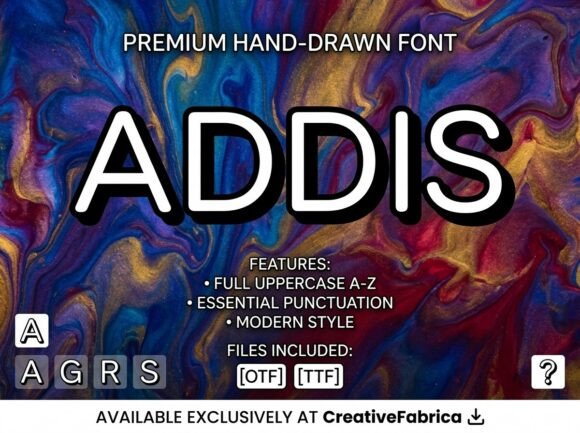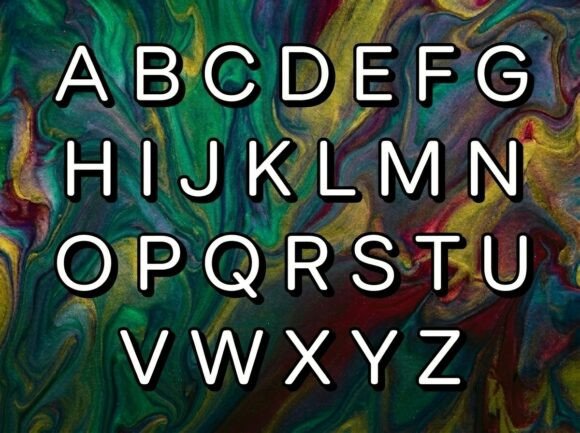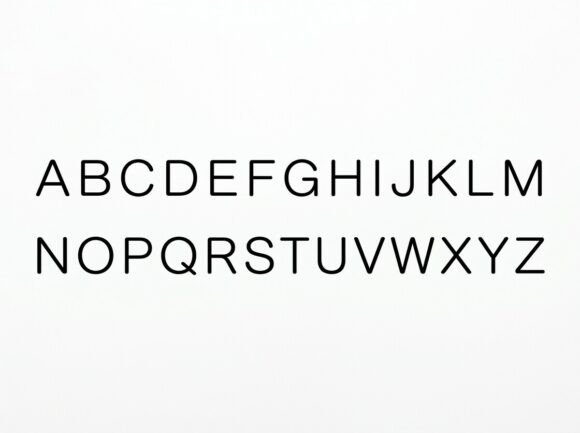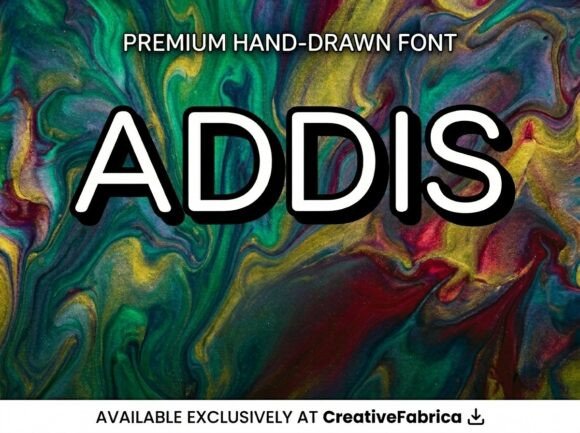
Introducing Addis Font: The Perfect Blend of Organic Charm and Modern Clarity
In the world of typography, finding the right font can make all the difference in creating a lasting impression. For designers and crafters looking to infuse their work with a touch of personality and approachability, Addis font is an exceptional choice. This premium hand-drawn font combines clean, sans-serif letterforms with a subtle, handcrafted irregularity that adds warmth and character to any design.
The Unique Characteristics of Addis Font
Addis font boasts a unique blend of modern clarity and organic charm. Its clean, sans-serif letterforms provide a crisp and contemporary look, while the subtle irregularities in the lettering add a touch of handcrafted warmth. This font features smooth, rounded terminals that give it a friendly and approachable feel, making it perfect for designs that require a personal touch.
One of the standout features of Addis font is its versatility. Its bold presence and smooth lines make it an excellent choice for a wide range of design applications. Whether you’re creating a logo for a boutique shop, designing a standout header for a digital campaign, or crafting artisanal product packaging, Addis font delivers a sense of approachable sincerity and effortless, artisanal grace to your visual identity.
Perfect for Creative Branding
For businesses looking to establish a strong brand identity, Addis font offers a unique opportunity to stand out from the crowd. Its hand-drawn charm and modern clarity make it an exceptional choice for creative branding, allowing businesses to convey a sense of personality and approachability. Whether you’re launching a new product or rebranding an existing company, Addis font can help you create a lasting impression.
Elevate Your Lifestyle Blog or Social Media Quotes
Addis font is also an excellent choice for lifestyle bloggers and social media influencers looking to elevate their visual identity. Its smooth lines and rounded terminals make it perfect for creating eye-catching headers and quotes that are sure to grab attention. With Addis font, you can add a touch of personality and sophistication to your online presence, setting you apart from the competition.
The Benefits of Using Addis Font
So why choose Addis font for your design projects? Here are just a few benefits of using this premium hand-drawn font:
• Unique character: Addis font offers a distinctive look that sets it apart from more traditional fonts.
• Improved legibility: Despite its hand-drawn irregularities, Addis font remains highly legible, making it perfect for body text and headlines.
• Versatility: Addis font can be used in a wide range of design applications, from branding and packaging to blogging and social media.
Tips for Using Addis Font Effectively
To get the most out of Addis font, here are a few tips to keep in mind:
• Experiment with font sizes: Addis font looks great in a variety of font sizes, from large headlines to smaller body text.
• Pair with complementary fonts: Addis font pairs well with a range of complementary fonts, including serif and script fonts.
• Use for emphasis: Addis font is perfect for creating emphasis in your designs, whether you’re highlighting a key message or creating a call-to-action.
In conclusion, Addis font is a premium hand-drawn font that offers a unique blend of organic charm and modern clarity. Its versatility, legibility, and ease of use make it an exceptional choice for designers and crafters looking to infuse their work with personality and approachability. Whether you’re creating a logo, designing a header, or crafting artisanal product packaging, Addis font is sure to deliver a lasting impression.